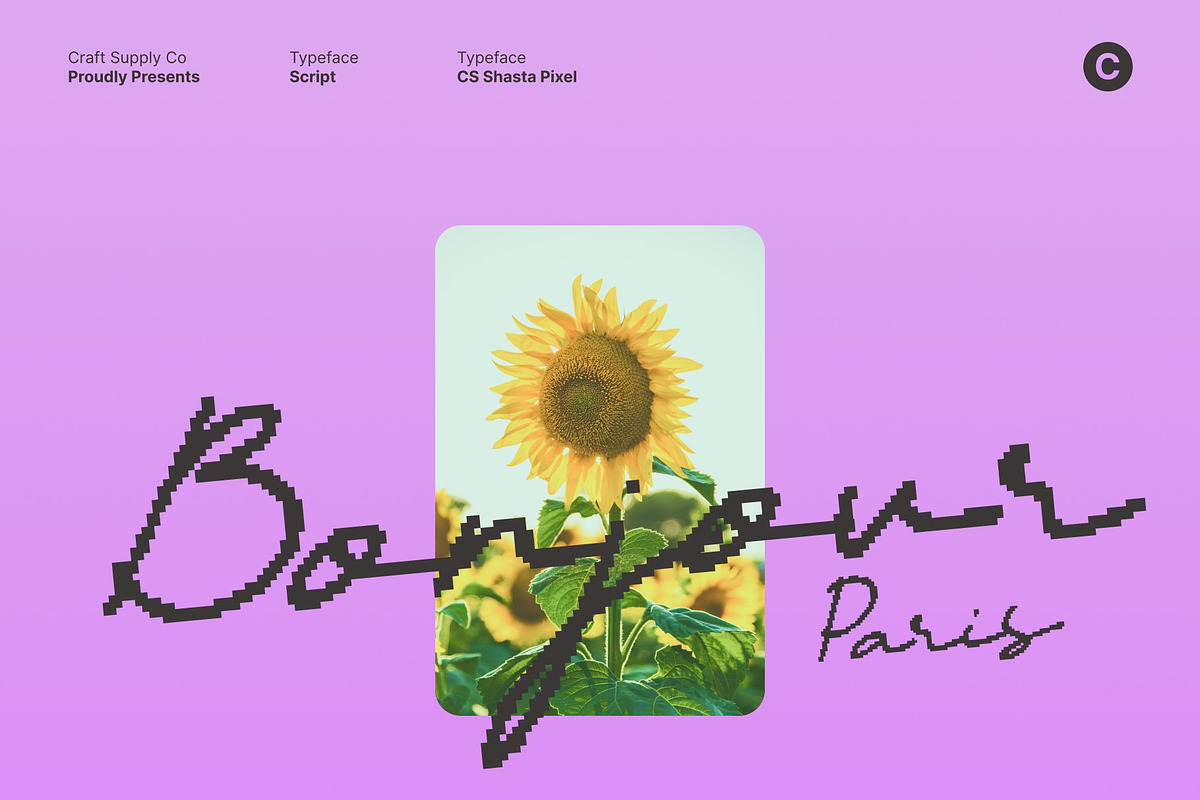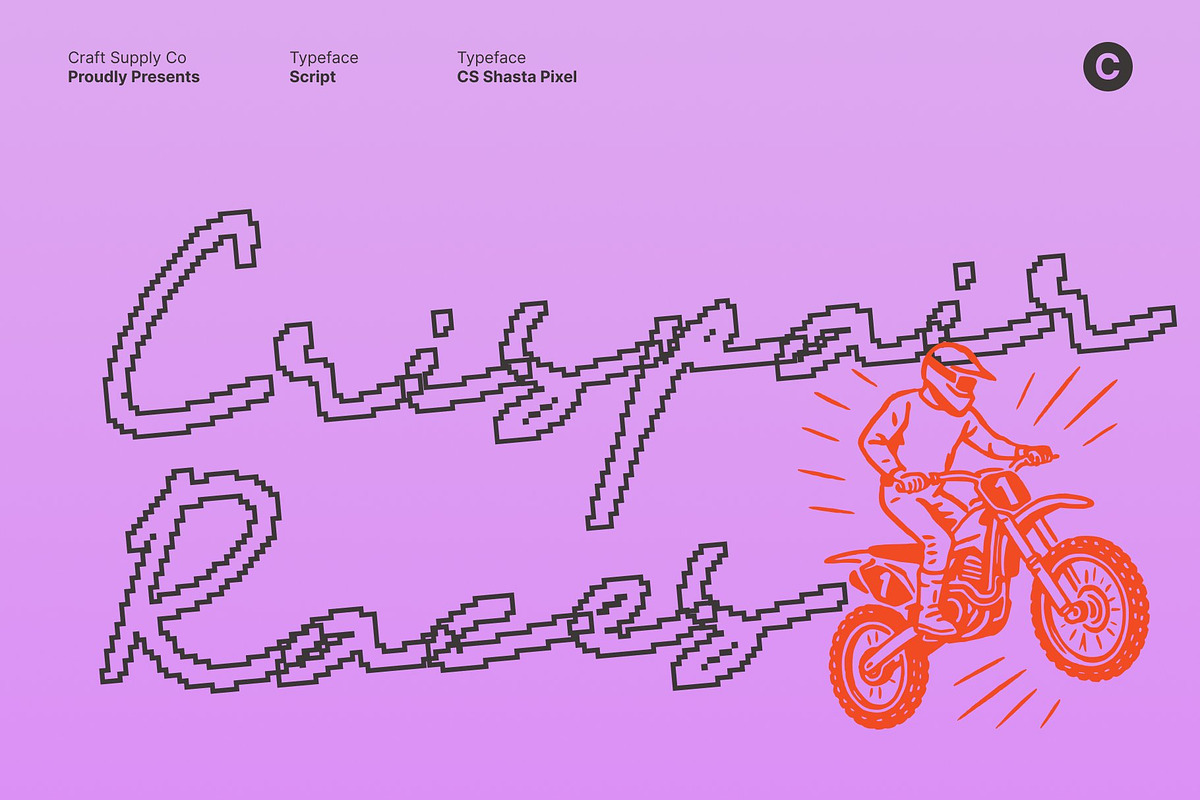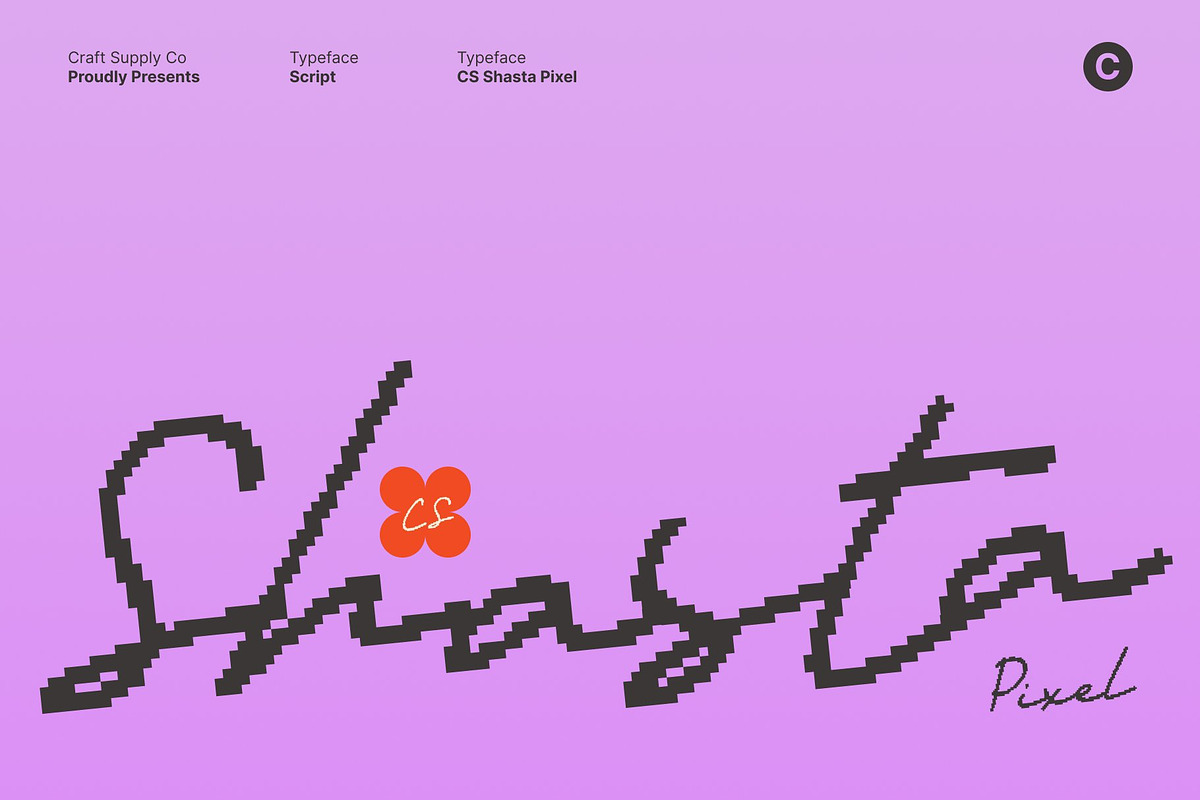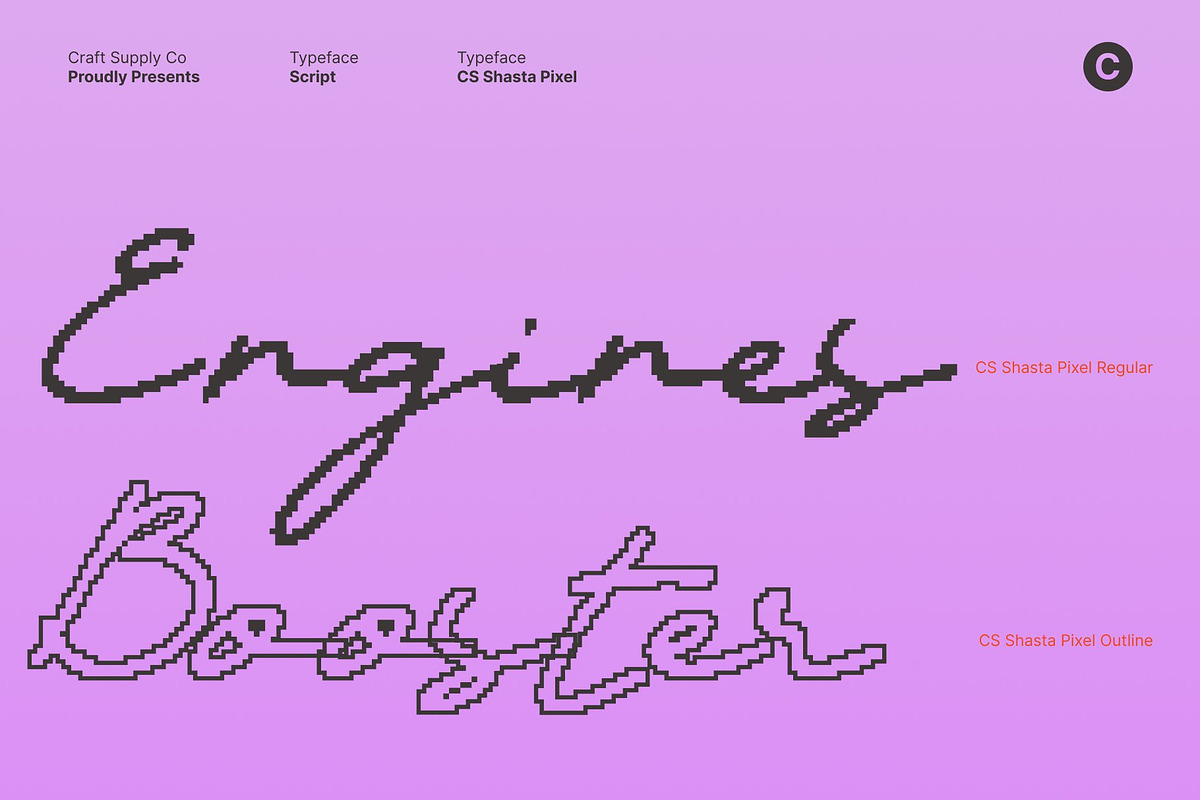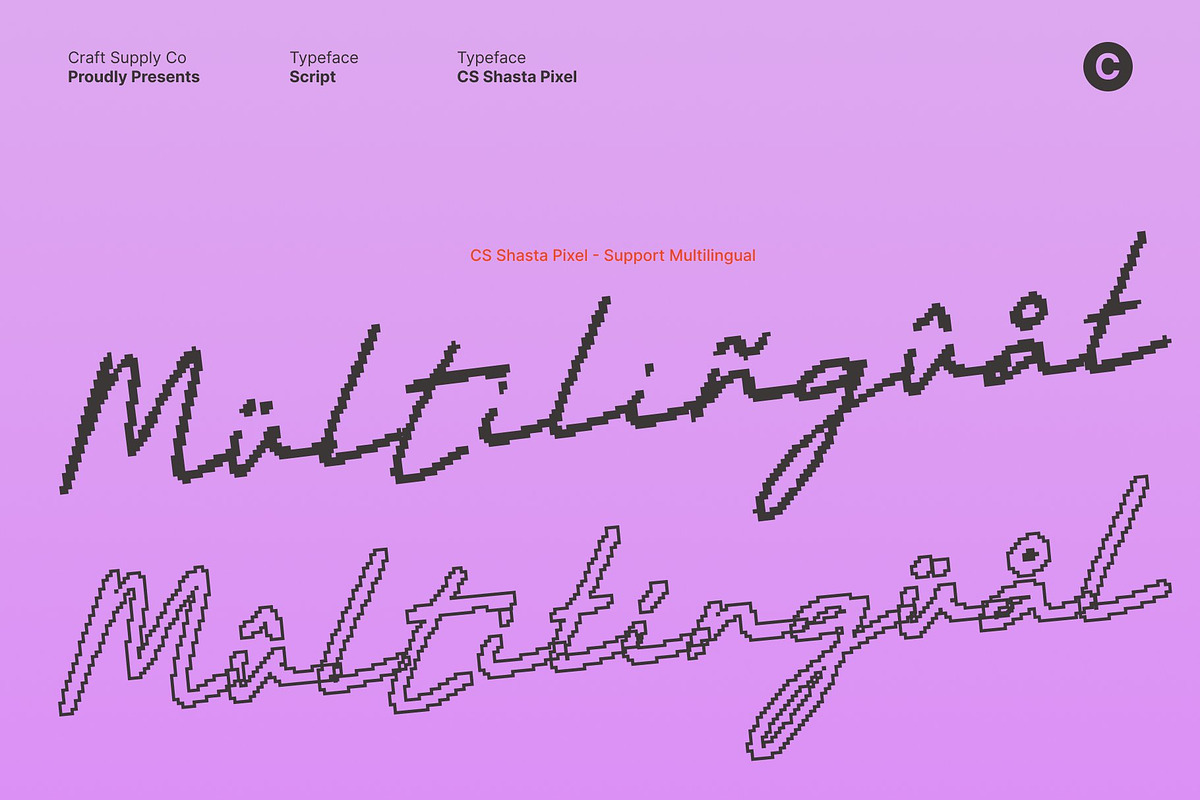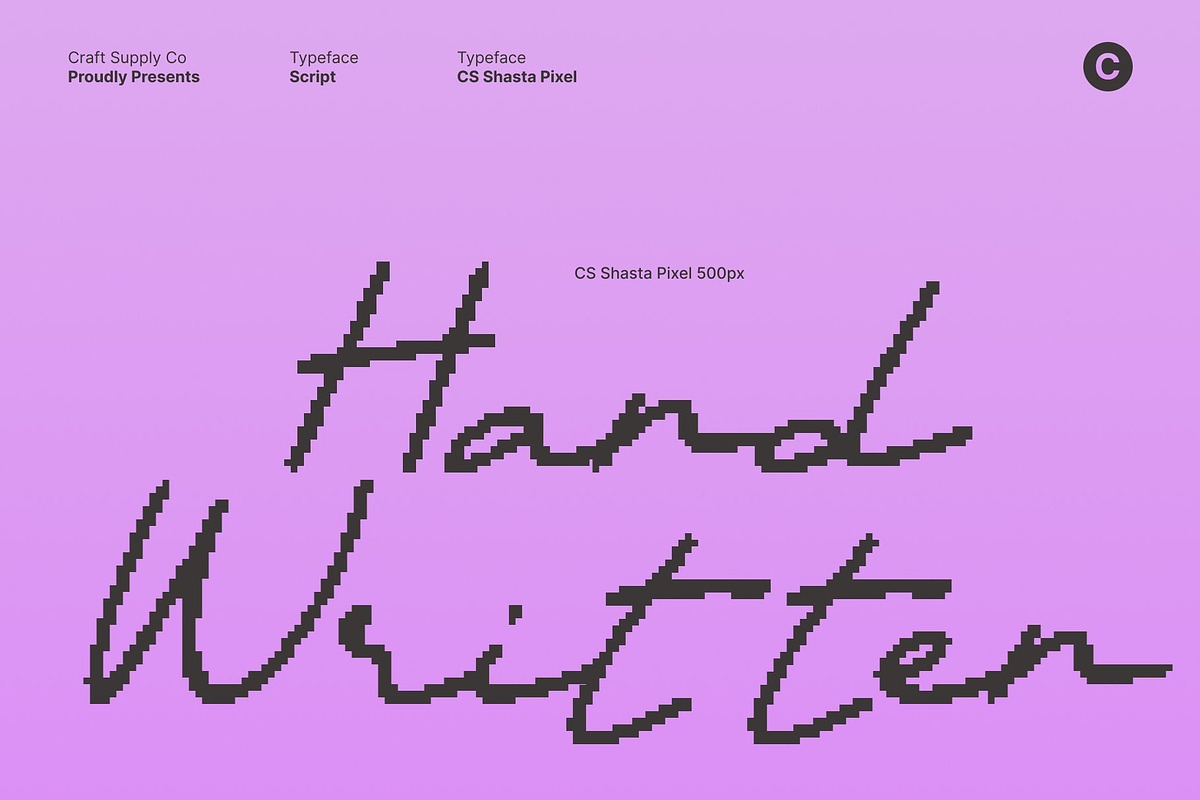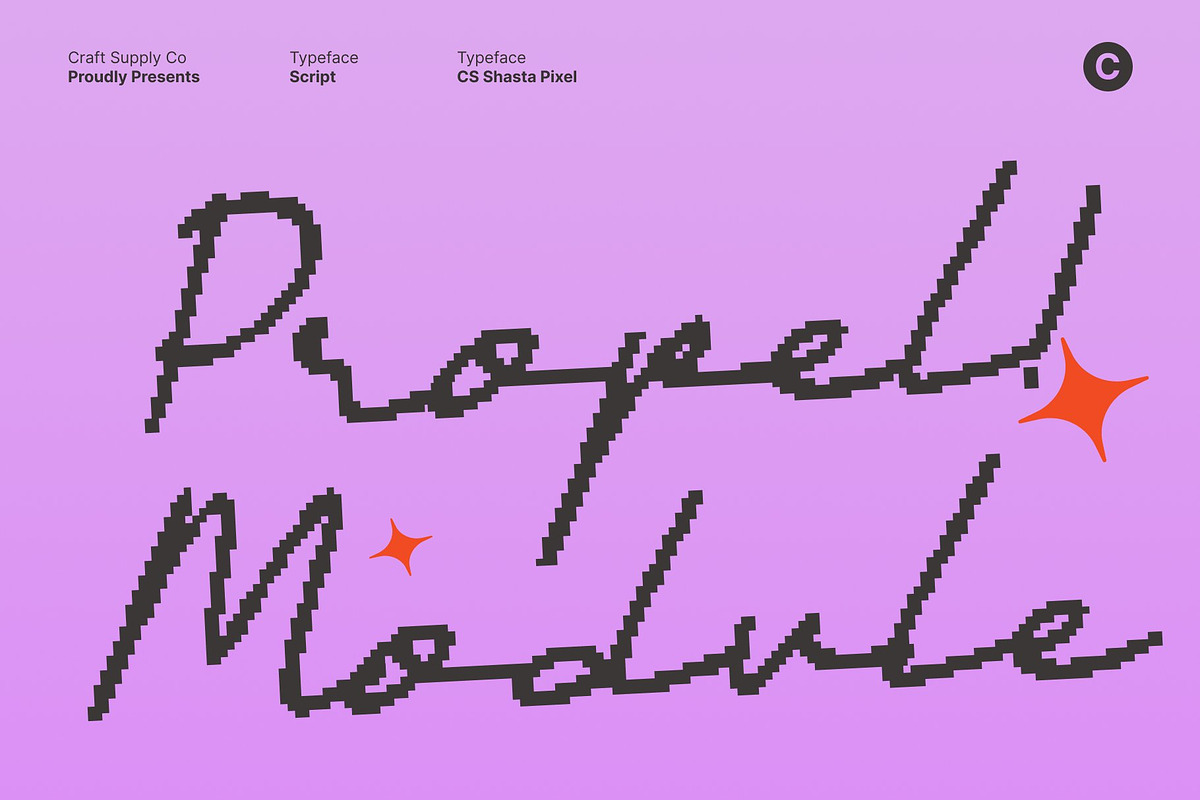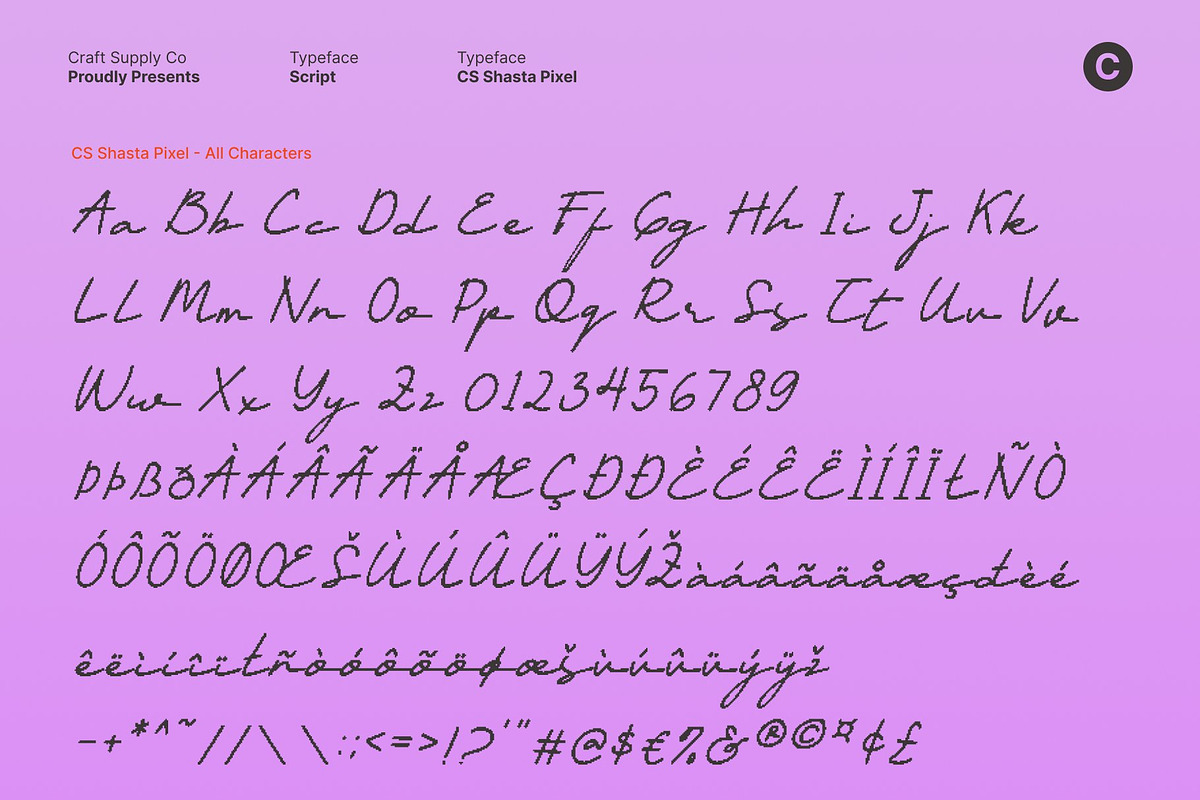
CS Shasta Pixel
CS Shasta Pixel – Handwritten Script Font with Signature Style
Personal Handwritten Elegance This is a handwritten script font crafted to capture the graceful flow and charm of an authentic personal signature. Its smooth, fluid strokes create a natural rhythm that feels intimate, refined, and expressive. Designed to evoke sophistication with a handcrafted touch, this font brings warmth and individuality into every word.
Signature Style with Pixel Precision Blending elegant script forms with subtle pixel detailing, this font offers a distinctive fusion of classic handwriting and digital character. The flowing curves maintain their softness while the pixel structure adds a unique modern twist creating a look that feels both timeless and contemporary.
Graceful Curves for a Distinctive Identity Each letter is thoughtfully shaped to reflect the effortless beauty of real signature writing. The balanced proportions and stylish connections between characters ensure readability while preserving its organic, expressive personality. The result is a script that feels confident, personal, and visually memorable.
Ideal for Branding and Statement Logos Whether used for high-end stationery, or standout identity design, this font brings signature-worthy sophistication to every project. This font is the perfect choice for creators seeking a harmonious blend of handwritten elegance and modern pixel style.
- CS Shasta Pixel Regular
- CS Shasta Pixel Outline